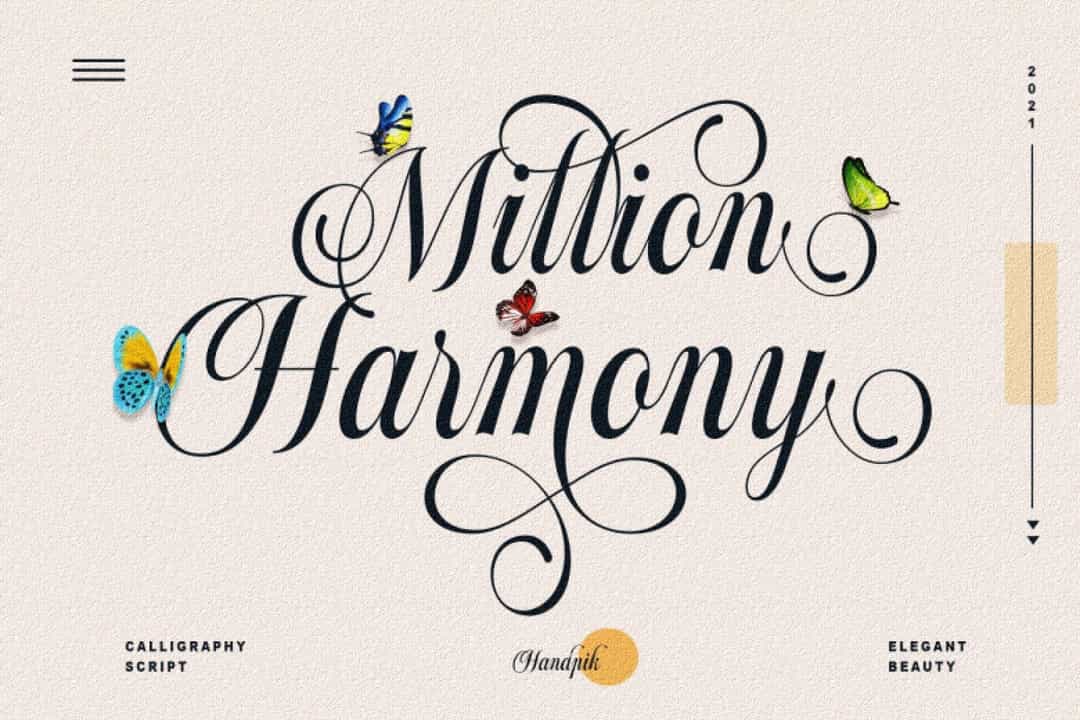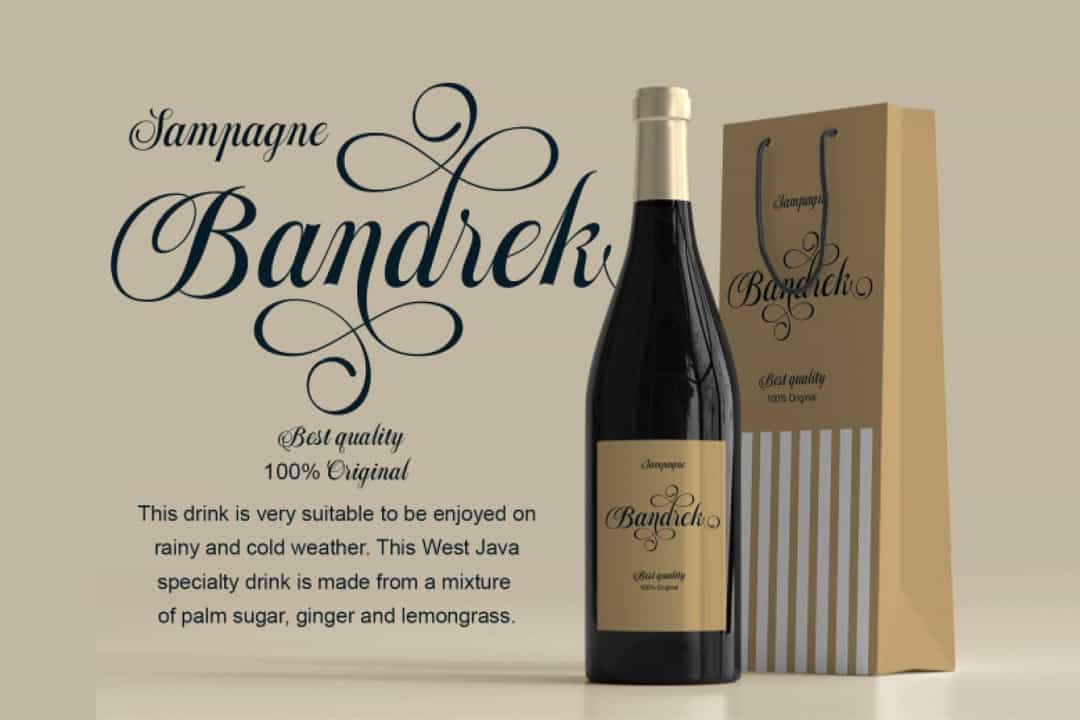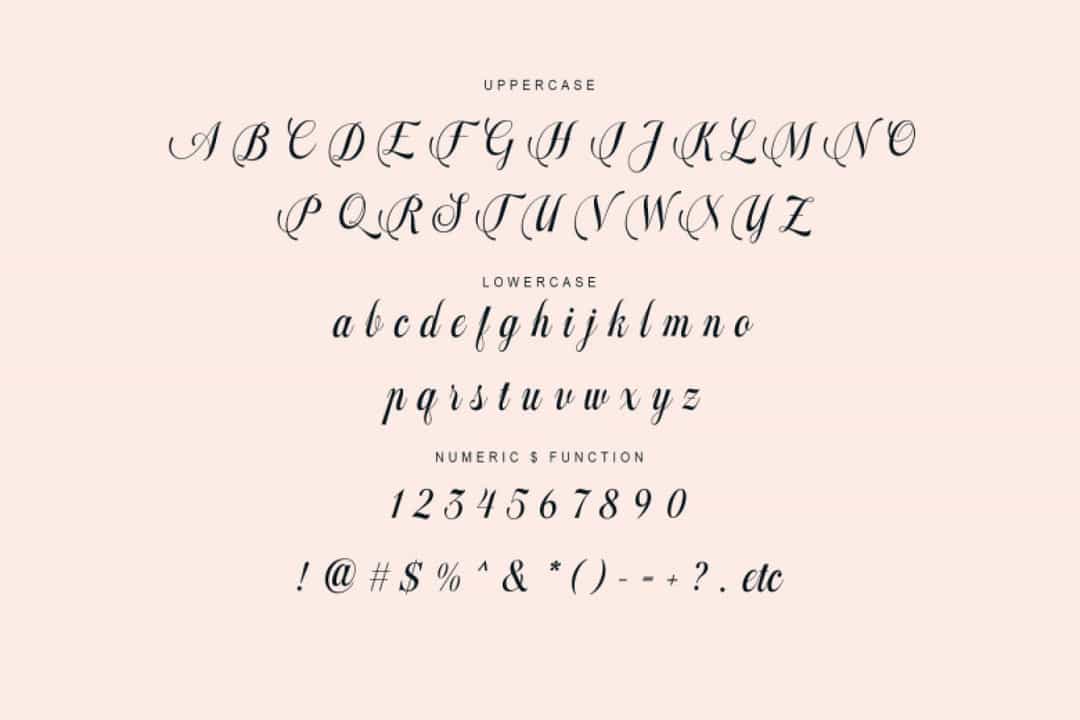
Million Harmony is a writing font with beautiful designs in each letter that makes for a striking aesthetic, making it the ideal font choice for an array of projects such as logos and branding invitations and stationery, wedding designs for social media posts on weddings or special events, printed quotes printed for product packaging labelling as well as designs for products photography watermarks special occasions and more.